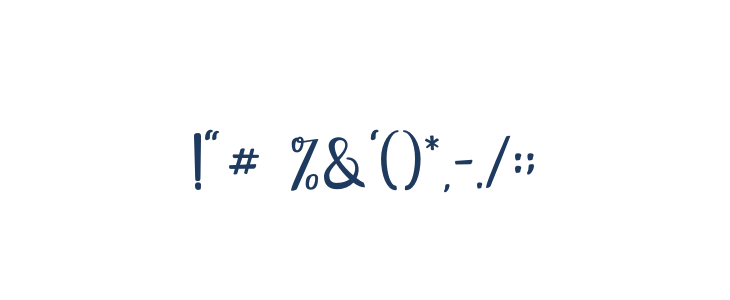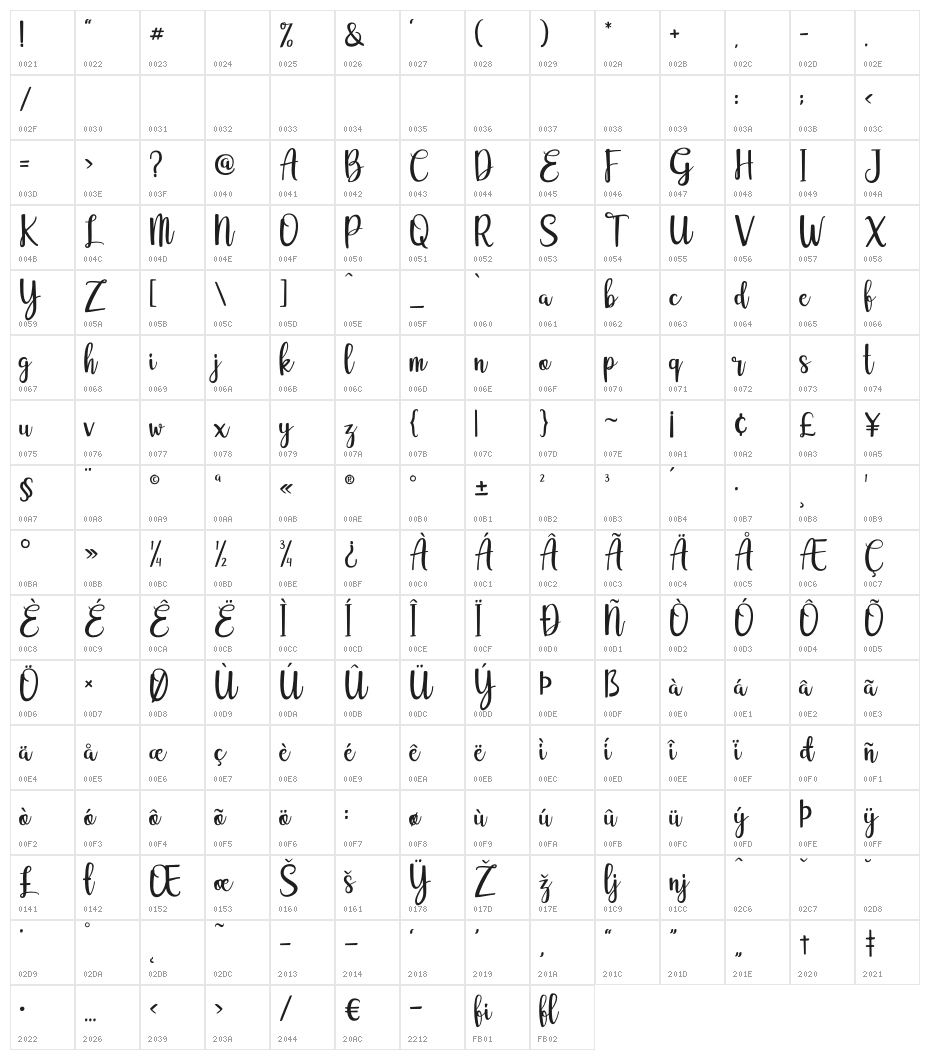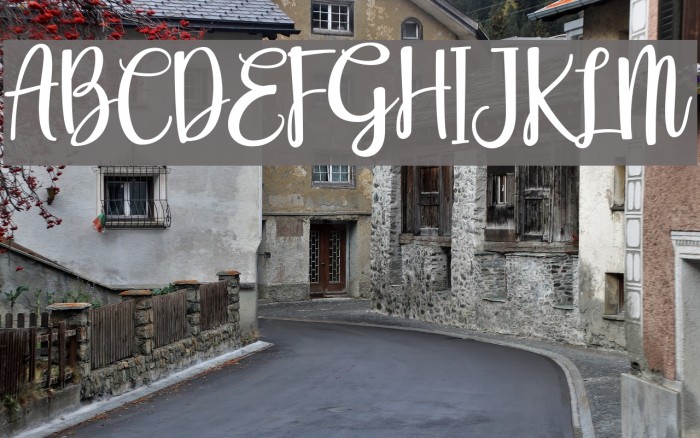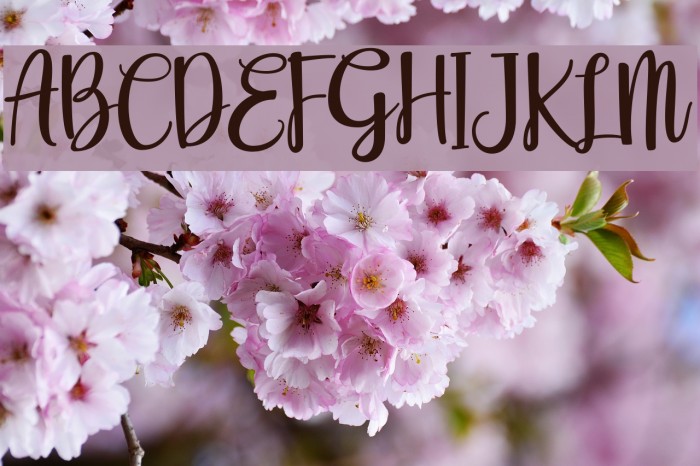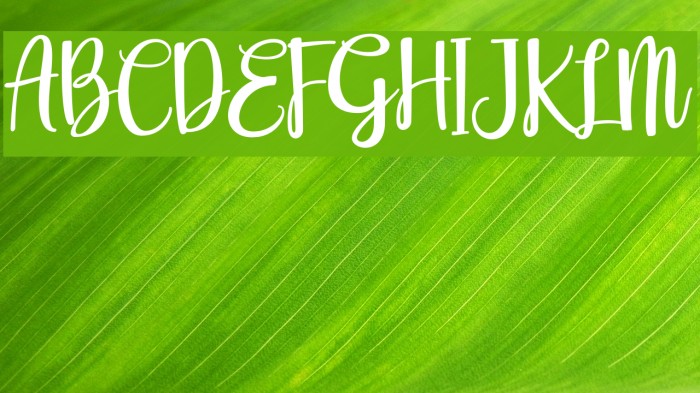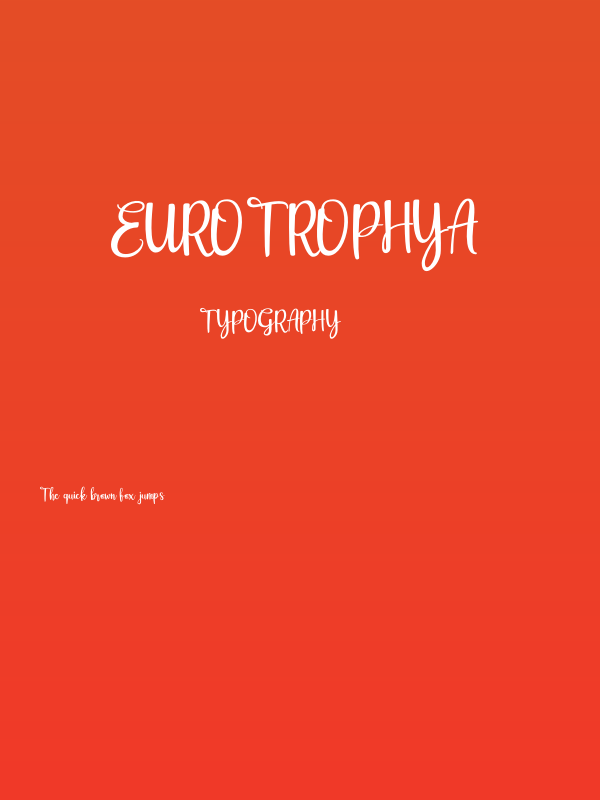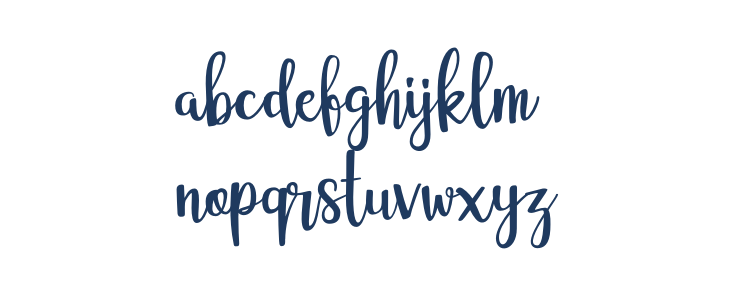
Eurotrophya Font
Eurotrophya Description
This font features a playful and artistic script style, characterized by its flowing, cursive letters that convey a sense of elegance and creativity. The uppercase letters are bold and slightly exaggerated, with unique flourishes that add a touch of whimsy. The lowercase letters maintain a consistent flow, enhancing readability while retaining an artistic flair. The font includes a full set of numerals and a variety of special characters, making it versatile for different design needs. Its overall appearance is both modern and decorative, suitable for projects that require a personal and stylish touch.
| Proposed Projects | Ideal for wedding invitations, greeting cards, branding projects, and social media graphics. |